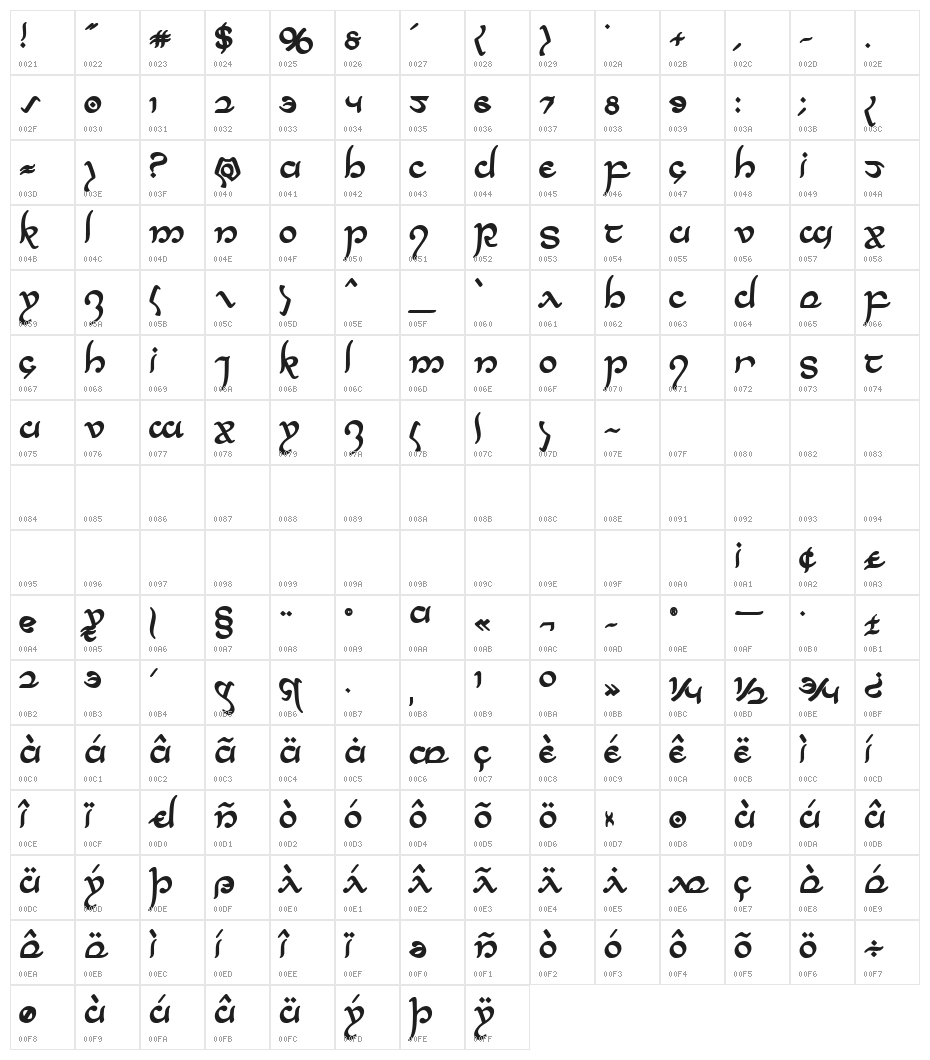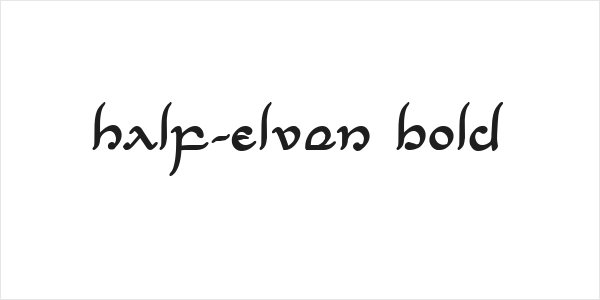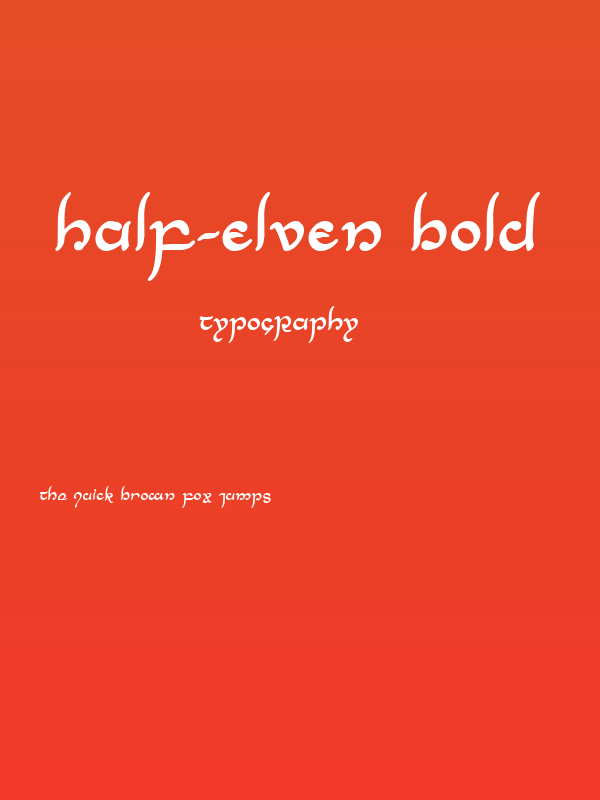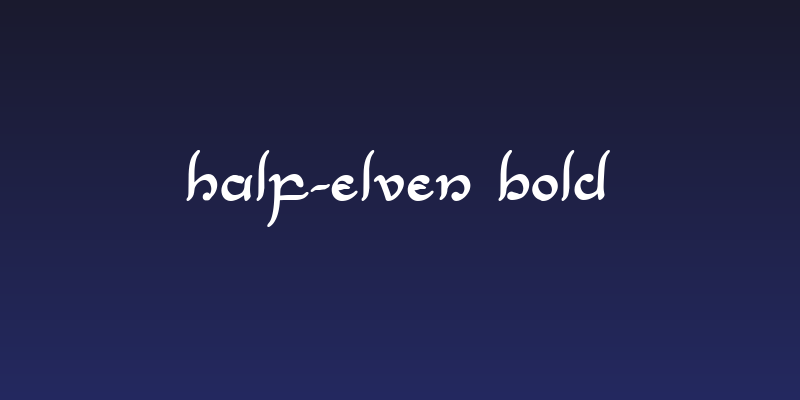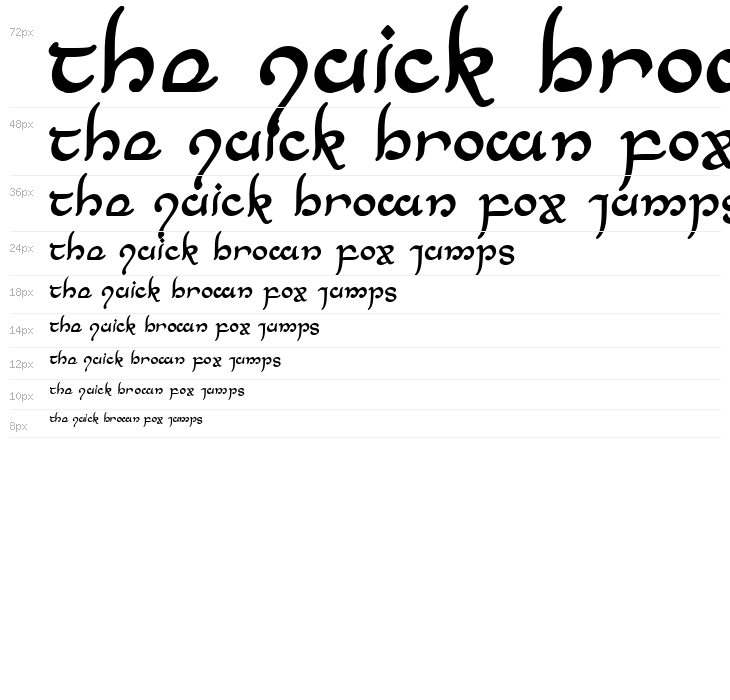
Half-Elven Bold Font
Half-Elven Bold Description
This font features a unique, flowing design reminiscent of fantasy and elven aesthetics. The characters are elegantly curved with a distinct, mystical appearance. The uppercase and lowercase letters maintain a consistent style, with smooth, sweeping lines and occasional sharp points that add a touch of drama. The numerals and special characters follow the same whimsical design, making the font cohesive and visually appealing. The overall impression is one of elegance and fantasy, suitable for projects that require a touch of the magical or otherworldly.
| Overall Style | Fantasy, Decorative |
| Use Case | Headlines, Logos, Decorative text |
| Proposed Projects | Ideal for fantasy book covers, game titles, themed event invitations, and decorative posters. |